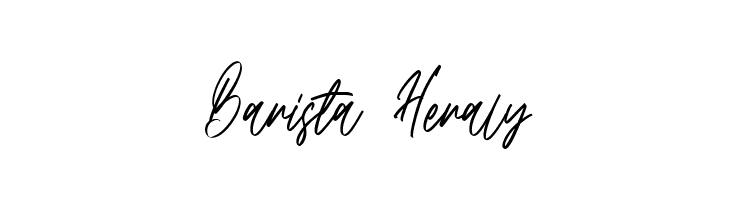
A modern, handwritten font with elegant, fluid strokes.
A dynamic handwritten font with fluid strokes and expressive character forms.
A flowing, elegant script font with smooth, connected strokes.